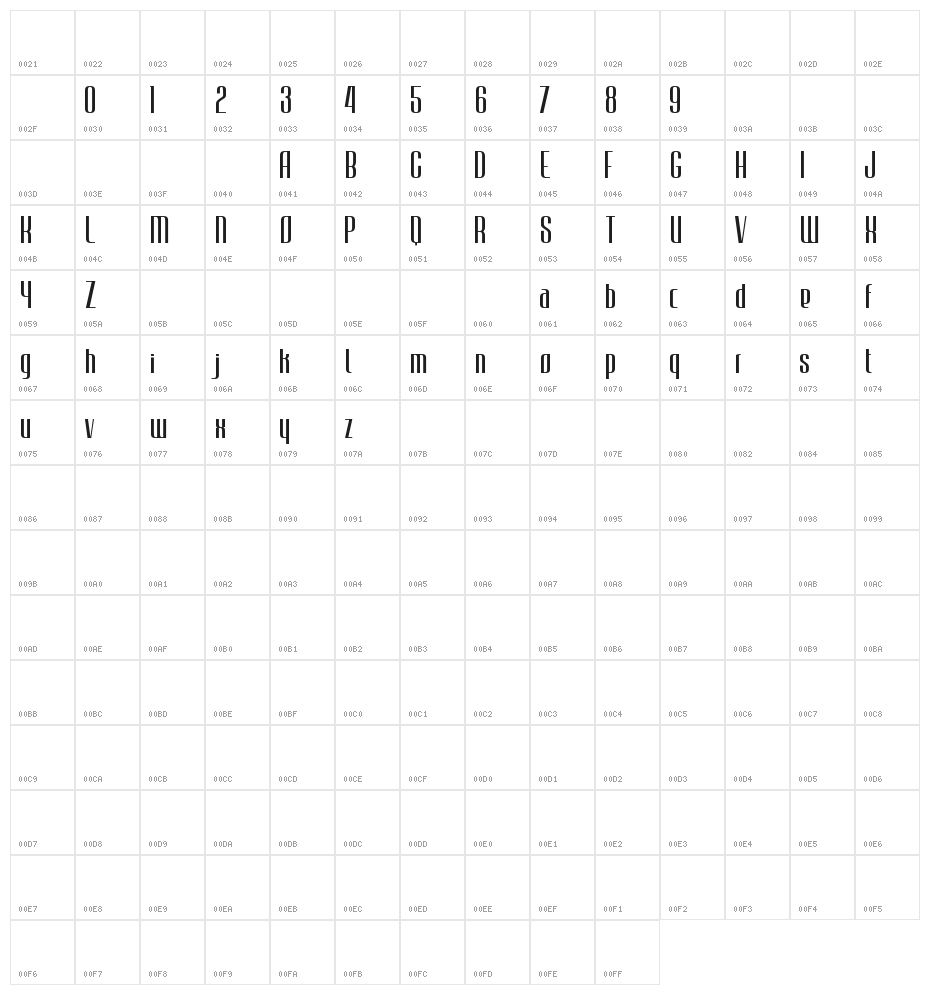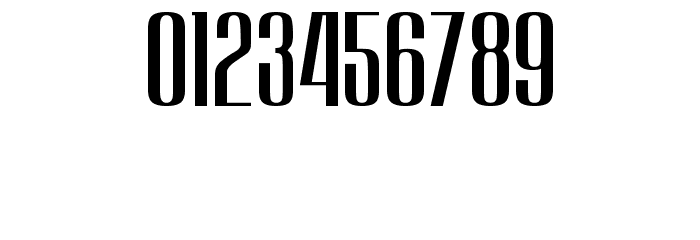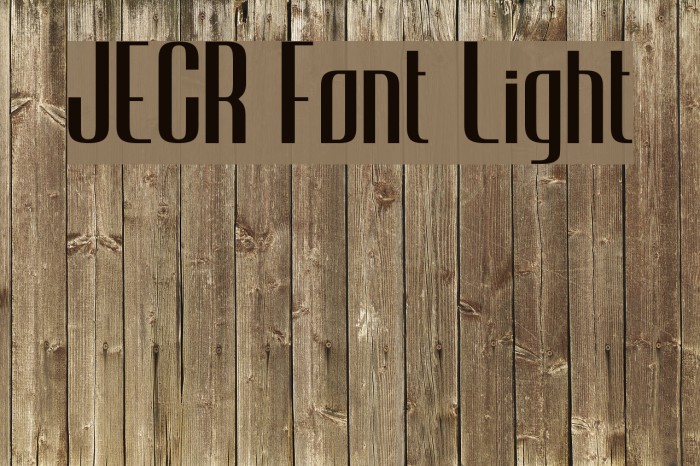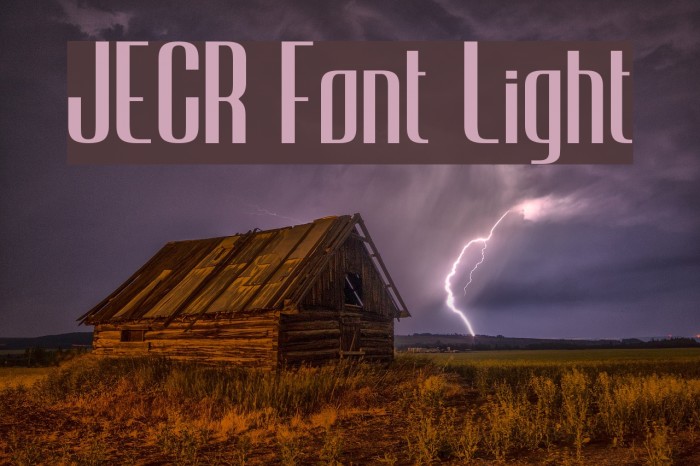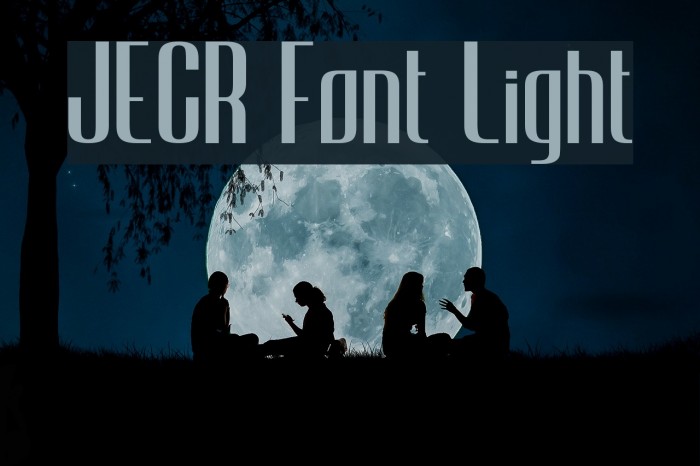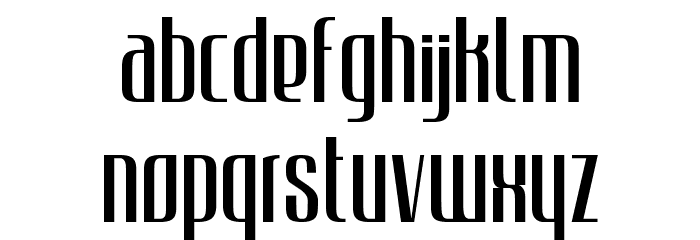
JECR Font Light Font
JECR Font Light Description
This font features a modern and sleek design with tall, narrow characters that convey a sense of elegance and sophistication. The vertical emphasis is pronounced, with clean lines and minimal ornamentation, making it ideal for contemporary design projects. The uppercase and lowercase letters maintain a consistent style, with a slight variation in stroke width that adds subtle interest without compromising readability. The numerals are equally refined, matching the overall aesthetic with their streamlined form. Special characters are included, maintaining the font's cohesive look.
| Proposed Projects | Ideal for branding, editorial design, and high-end product packaging. |